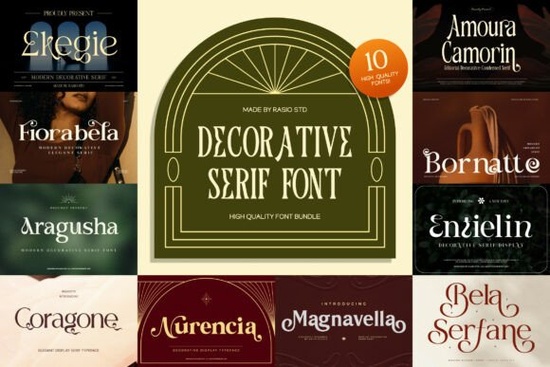
When you need a typeface that adds a touch of vintage charm and artistic detail to your projects, a Decorative Serif Font is exactly what you should look for. Finding the right typography can completely transform the feel of your visual work, turning a basic layout into a professional piece of art. These ornamental typefaces bring character and elegance to everything from wedding invitations to boutique branding. Instead of relying on plain text, you can use expressive letterforms with unique swashes and curves to make your words stand out. Whether you are designing a logo, an editorial layout, or packaging for a small business, this Decorative Serif Font bundle gives you the right tools to create something truly memorable.
What makes ornamental serif typefaces different from standard fonts?
Standard fonts focus mainly on readability for long paragraphs. Ornamental serifs, on the other hand, are built specifically for display use. They feature carefully crafted details like decorative accents, sweeping curves, and distinct letterforms. This makes them perfect for headlines, titles, and visual compositions where style and mood matter most. If you are exploring the broader stylistic serif category, you will notice how these specific typefaces lean heavily into vintage aesthetics and refined artistic details.
Who can use these expressive letterforms in their projects?
This collection is highly versatile and suits a wide range of creative professionals and hobbyists:
- Graphic Designers: Use them for editorial layouts, artistic posters, and magazine covers.
- Small Business Owners: Apply them to elegant packaging, boutique logos, and brand identity materials.
- Print-on-Demand Sellers: Create eye-catching apparel and home decor items with vintage-inspired quotes.
- Creative Hobbyists: Design beautiful wedding invitations, greeting cards, and scrapbook layouts.
How do I pair decorative serifs with other typefaces?
Because these typefaces have so much personality, the best approach is to pair them with something simple and clean. A minimalist sans-serif or a very basic, highly readable serif works best for your body text. This contrast ensures your main message remains easy to read while your headlines grab all the attention. When in doubt, stick to the classic rule of pairing one highly detailed font with one very plain font. This keeps your design looking professional and prevents the layout from feeling cluttered. You can also mix them with other display fonts, like a Grinola typeface, if you are building a complex typographic poster and need varying levels of visual weight.
Where should I use highly detailed display fonts?
You should reserve these highly detailed display fonts for short phrases, single words, or short titles. Never use them for long paragraphs, as it will make the text difficult to read and tire the reader's eyes. Think of them as the visual focal point of your design. They work beautifully in the decorative serif collection for things like:
- Book covers and chapter titles
- Restaurant menus and wine labels
- Social media graphics and quote cards
- Certificate borders and award ribbons
What should I check before finalizing my typography choices?
Before you send your next design project to print or publish it online, run through this quick checklist to ensure your typography choices are working effectively. Remember that good typography is just as much about spacing and alignment as it is about the font choice itself:
- Did you limit the ornamental font to headlines or short phrases?
- Is there enough contrast between your display font and your body text?
- Does the vintage or classic mood of the typeface match your overall brand message?
- Have you checked the kerning and spacing, as decorative swashes sometimes need manual adjustment?
Take a few minutes to test your chosen typeface in a mockup before committing to the final layout. Seeing the words in context will help you decide if the artistic details enhance your message or distract from it.